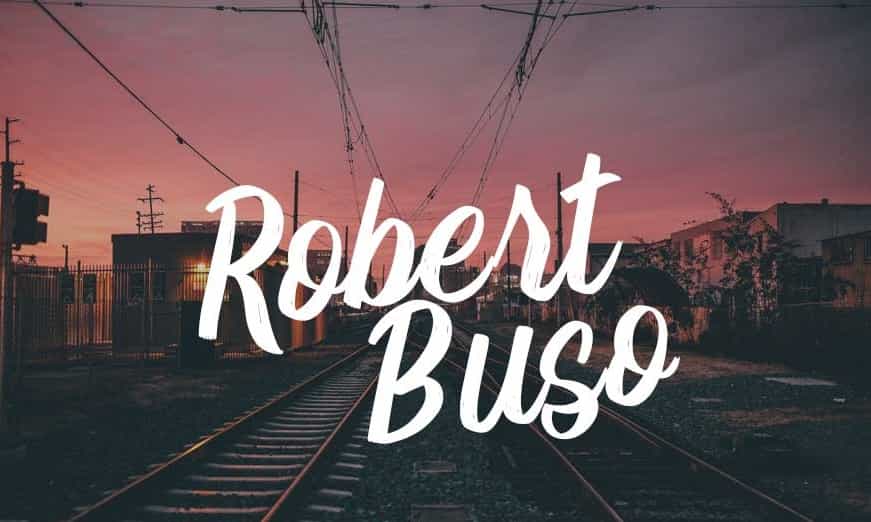
Discover Robert Buso Brush Font, part of the Brush collection—a versatile and unique font perfect for adding a personal touch to your projects. Download it for free and enjoy crafting designs with style, from invitations to social media posts. This font is available exclusively for personal use, giving you the freedom to create without limits. Unlock your creativity with Robert Buso Brush Font today!
Robert Buso – This is a crafted script font detailed yet simple in style. Let its elegance inspire you.